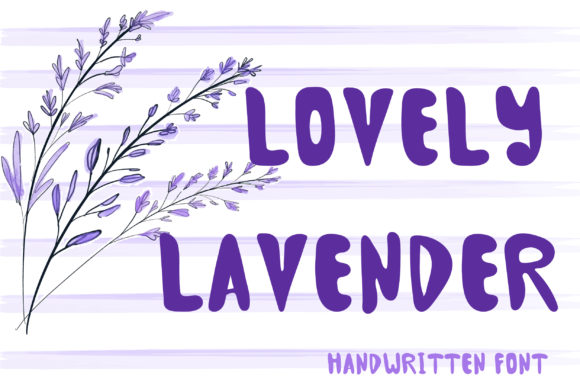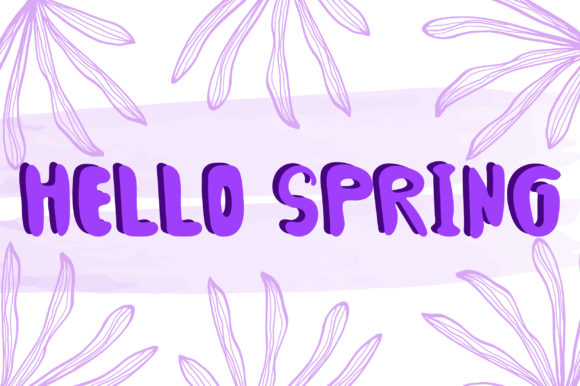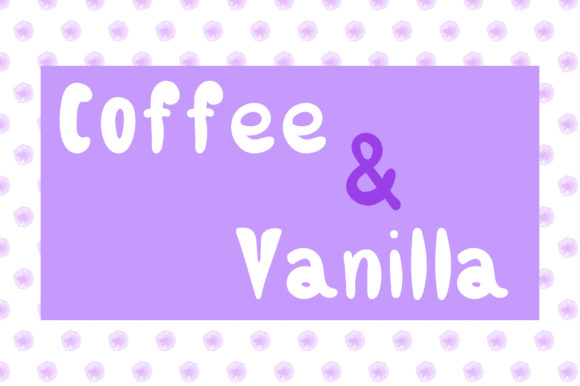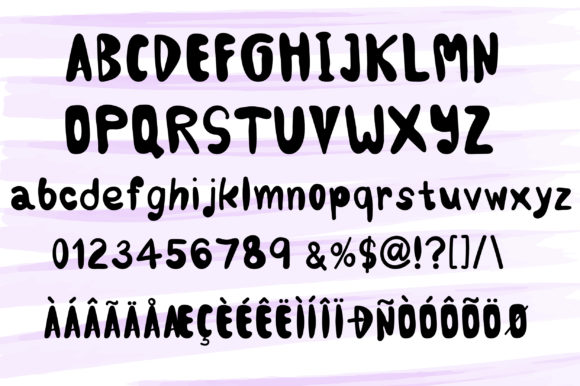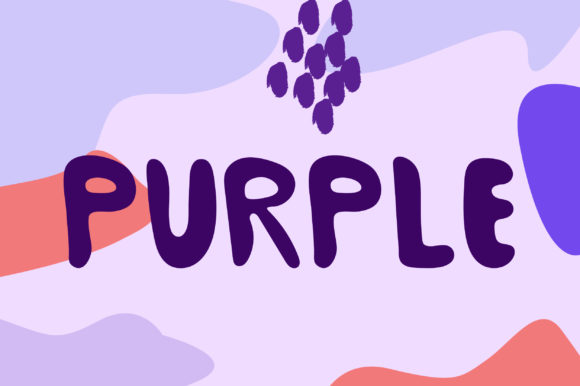
Lovely Lavender Font
About Lovely Lavender Font
Lovely Lavender is a cute and fun script that feels both fresh and familiar. It will look its best on any cute spring or Valentine’s Day arts and crafts project!